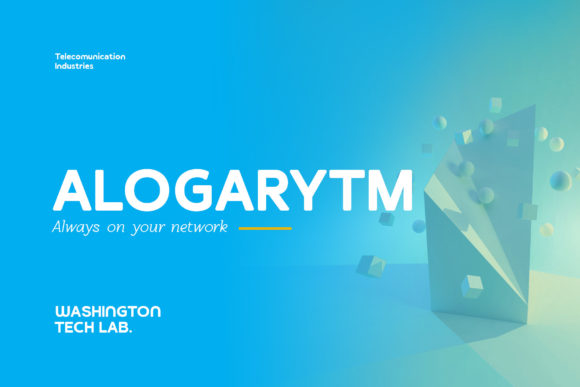
Magison Font
Magison – modern rounded bold sans serif – Techno Gadget Tech / Technology Display Font.
Magison is perfect for your upcoming projects. Such as logo branding, editorial design, stationery design, esport design, 80s retro design, game industry, sports racing, techno/gadget brand, digital music poster, apps startup design, modern advertising design, art quote, home decor, book/cover title, special events and any more.